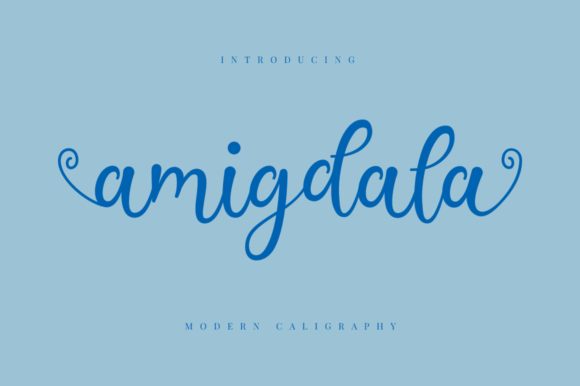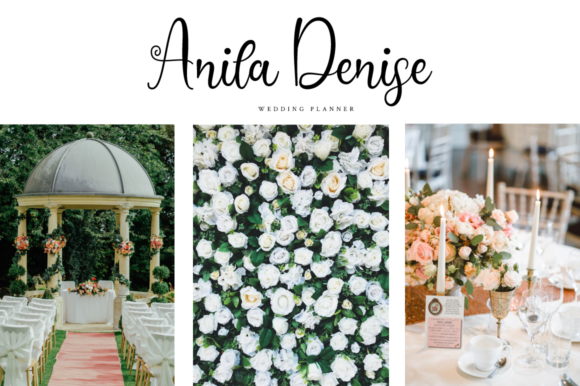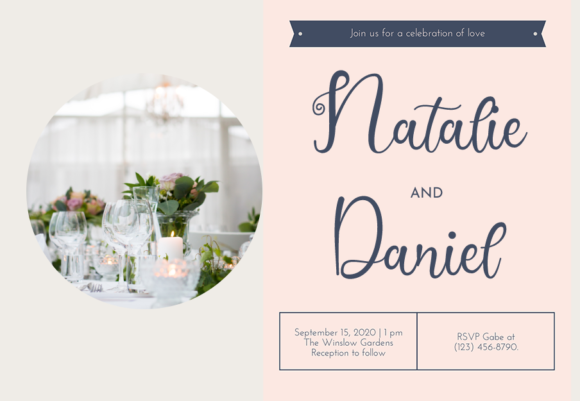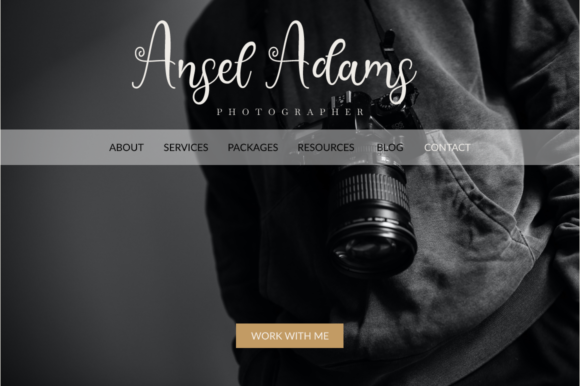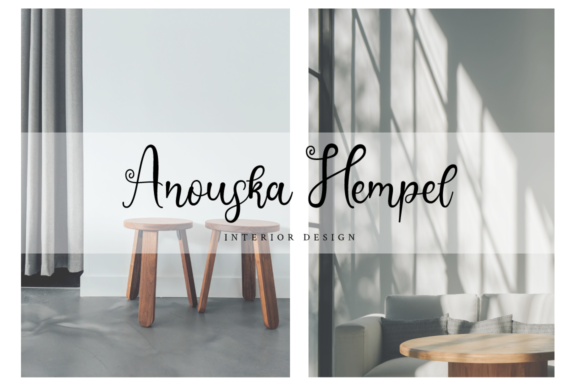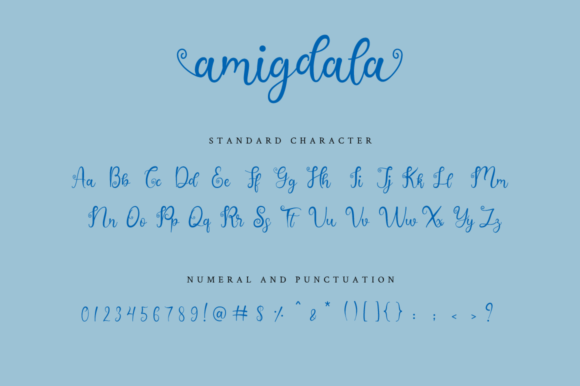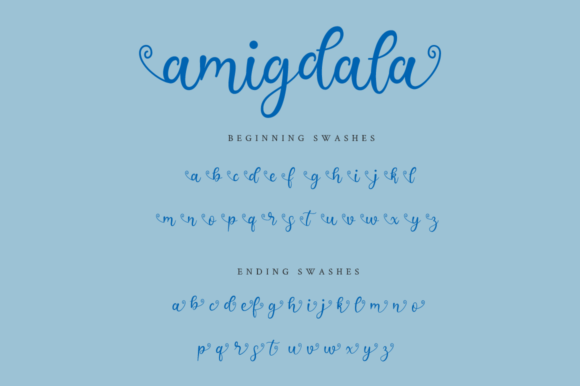
Amigdala Font
About Amigdala Font
Amigdala is a cute and cursive script font. This font is PUA encoded which means you can access all of the amazing glyphs and ligatures with ease! Fall for its ravishing style and use it to create gorgeous designs.